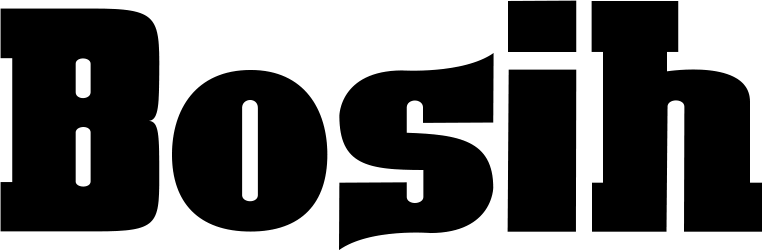
Bosih Font
Providing authentic and trustworthy senses to your writing design is an extraordinary change that comes true with this boxing font. This Bosih font has appeared with both edgy and square ends designs that can give off classical vibes to your typography. The unique traits of this title block font can highlight many designs like headlines, fashion, magazines, and posters.